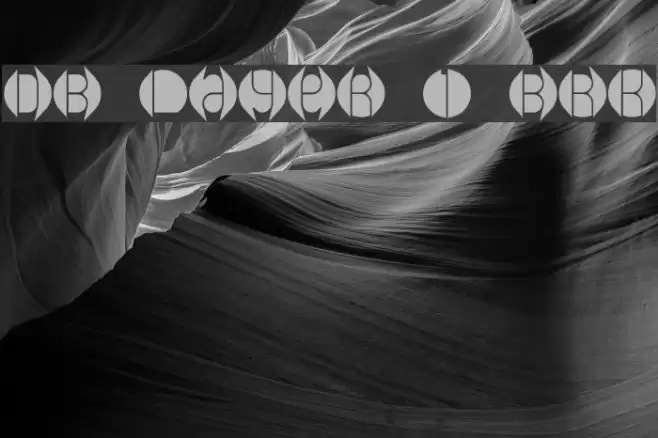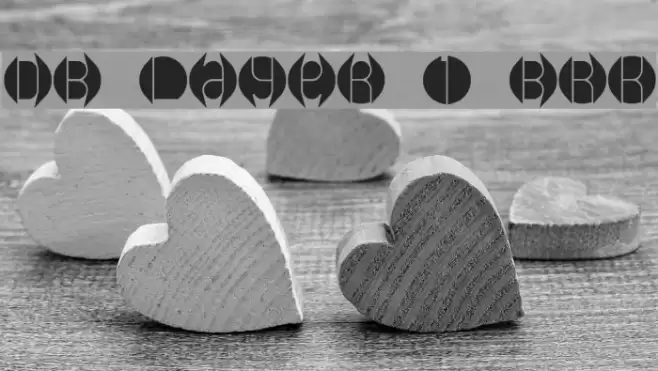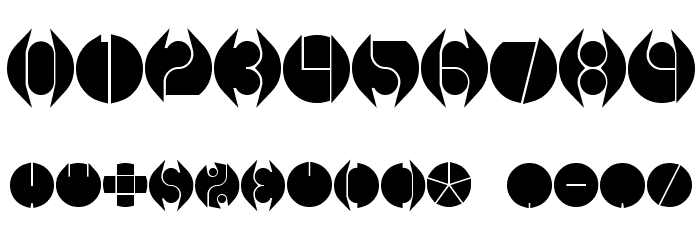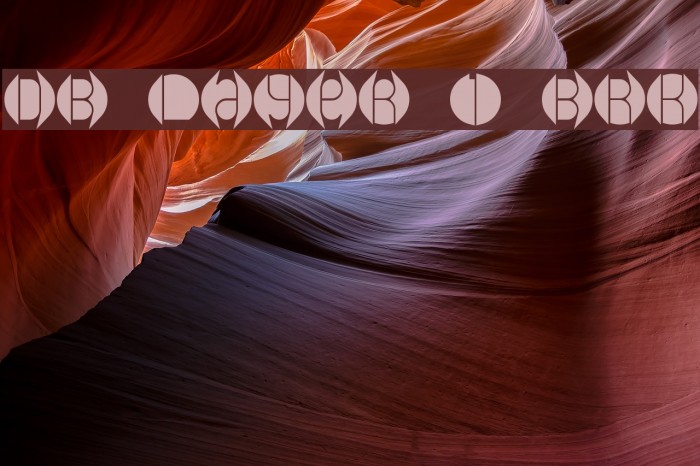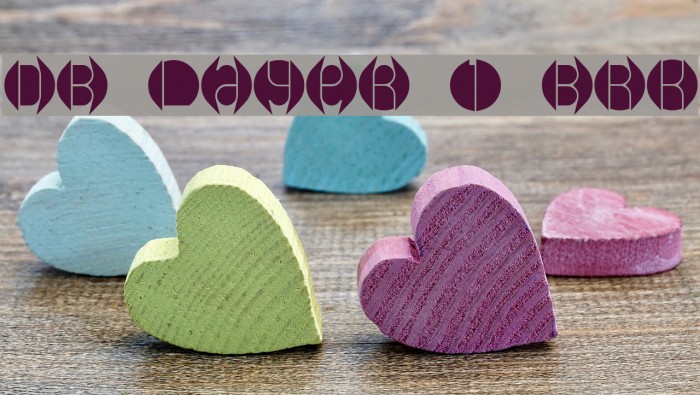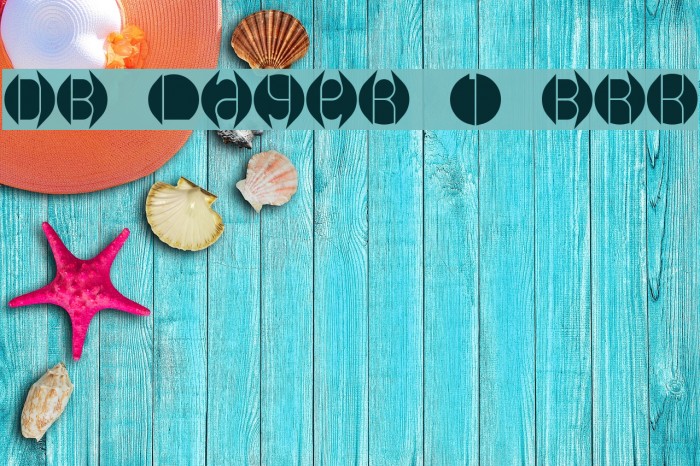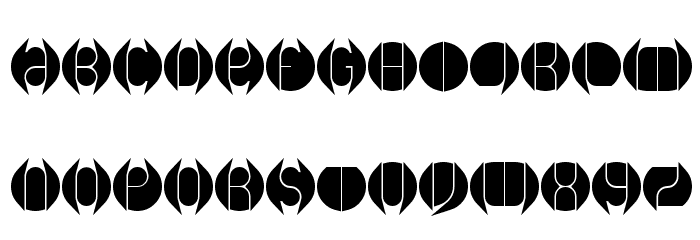
DB Layer 1 BRK Font
DB Layer 1 BRK Description
This font features a bold, geometric design with a futuristic and abstract aesthetic. Each character is crafted with a unique combination of circular and angular elements, creating a striking visual impact. The letters and numbers are highly stylized, with a consistent use of thick strokes and enclosed spaces that form a cohesive and modern look. The special characters maintain the same design principles, ensuring uniformity across the entire set. This font is ideal for projects that require a distinctive and avant-garde appearance.
A bold, geometric font with a futuristic and abstract style from Uncategorized fonts.
- Proposed Projects: Ideal for sci-fi themed designs, modern branding, posters, and digital artwork.